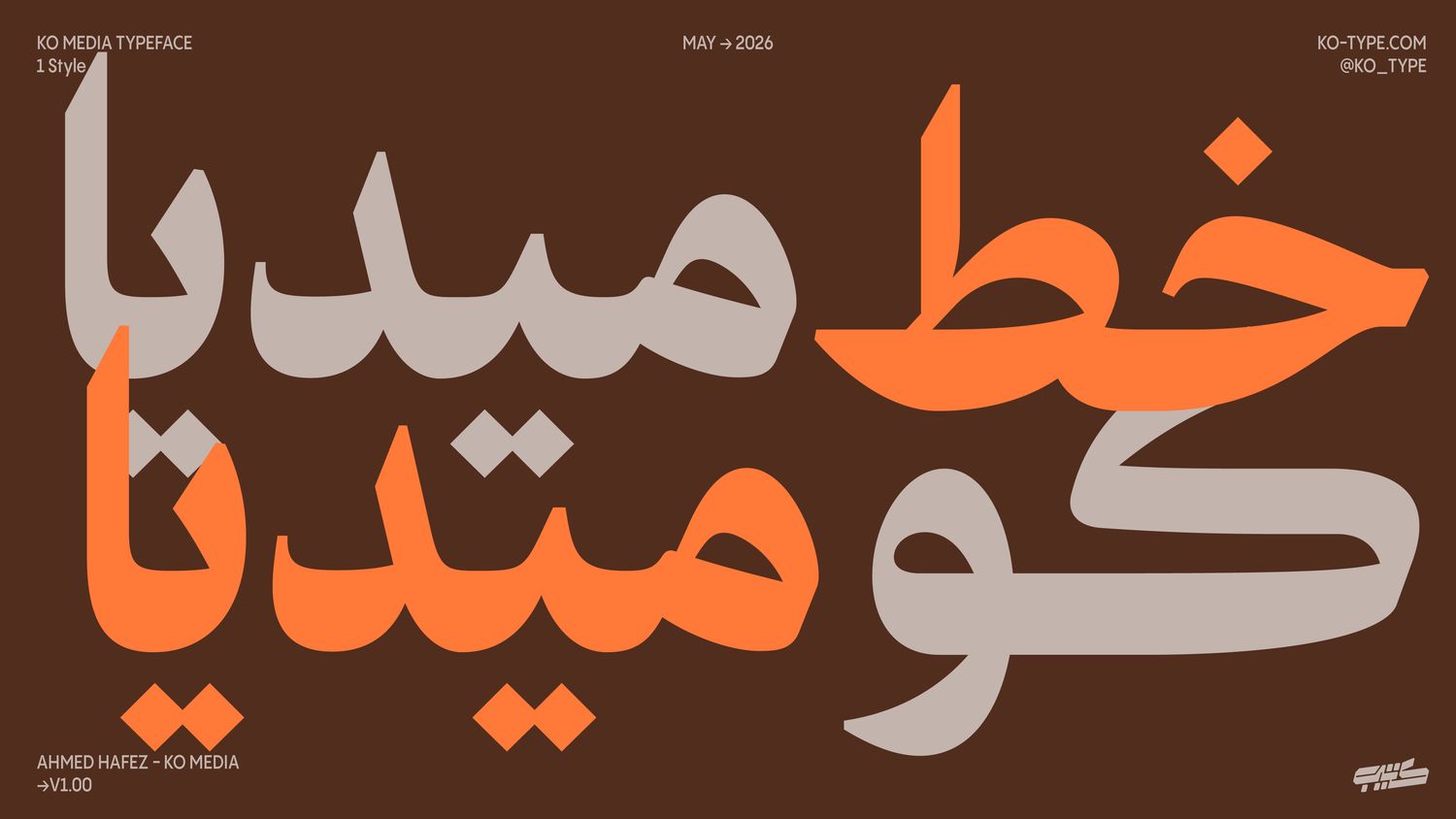
KO Media is a contemporary Arabic typeface designed with a refined balance of heritage and modernity. Initially released in a single style, the typeface is evolving into a broader family through ongoing updates and expansions.
It includes a rich set of OpenType features such as contextual alternates and ligatures, enabling expressive and dynamic typography across different applications.
Crafted for branding, editorial design, headlines, and posters, KO Media delivers a distinctive visual voice that feels both timeless and contemporary.